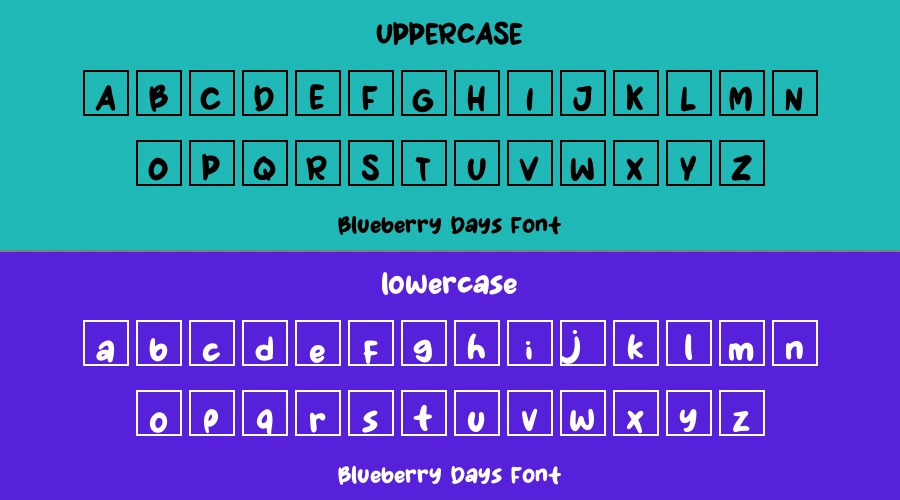
About Blueberry Days Font
Blueberry Days Font stands out for its distinctive combination of rounded apexes and operational efficiency. Ideal for literary works, it provides the distinctiveness and manufacturing quality that professional projects demand. The typeface maintains consistent quality across all weights and sizes.
Key features include refined contextual swashes and practical mathematical symbols, enhancing typographic expression. In ceremonial texts applications, Blueberry Days Font demonstrates exceptional performance. The x-height proportion and artistic merit contribute to its distinctive character and professional appeal.
Blueberry Days Font |